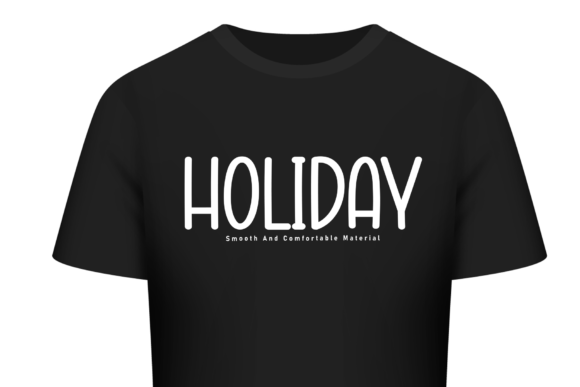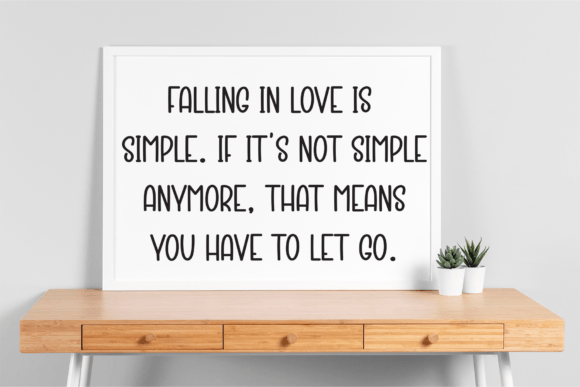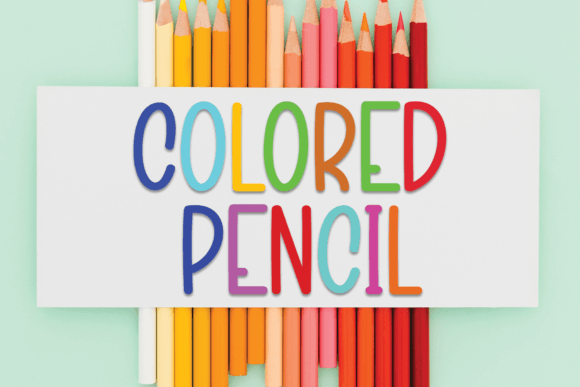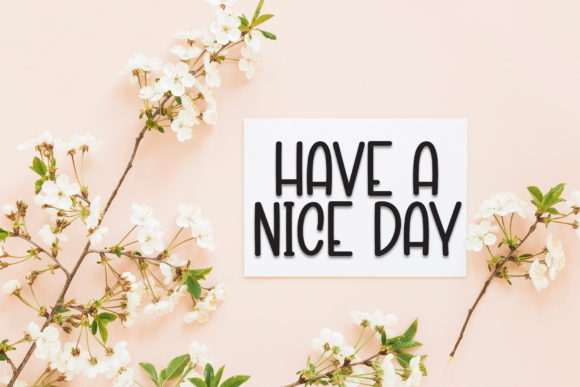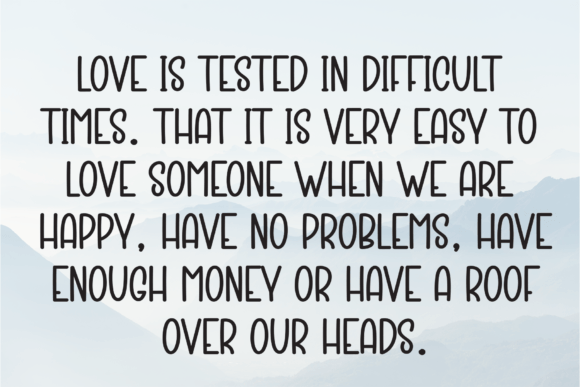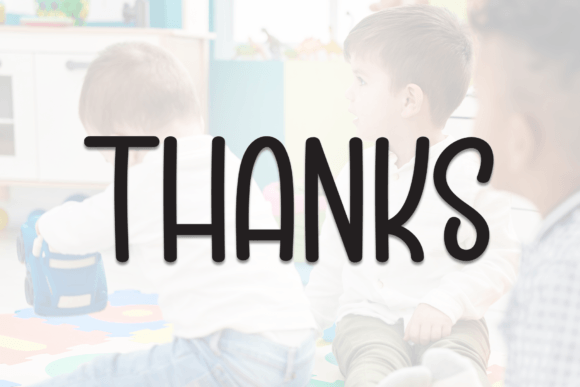
Unleashing Creativity with the Perfect Font
Have you ever sat down with a blank sheet of paper, a spark of inspiration, and a desire to create something truly special? That’s exactly where the magic happens, and the right font can make all the difference. For designers, finding the perfect font can be a daunting task, but what if we told you we’ve discovered a gem that’s sure to inspire your next project?
Meet the Baby School Font, a sweet and friendly handwritten font that’s as versatile as it is charming. With its natural and unique style, this font is the perfect companion for designers looking to add a touch of personality to their work. Whether you’re creating a children’s book, a wedding invitation, or a social media campaign, the Baby School Font is sure to bring your vision to life.
Baby School Font Key Features
- Font Family: Baby School Font is a hand-drawn, sans-serif font designed specifically for educational purposes.
- Unique Characteristics: Features a playful, child-friendly design with rounded edges and gentle curves, perfect for engaging young learners.
- Character Set: Includes a comprehensive set of characters, including uppercase and lowercase letters, numbers, punctuation marks, and special characters.
Baby School Font Review
First off, I want to say that the Baby School Font has a certain charm to it ✨. The whimsical feel and playful vibe are perfect for creating a nursery or kids’ educational materials. The font’s rounded edges and childlike quality make it instantly recognizable and attention-grabbing.
One of the things that stands out is the variety of font weights and styles available ✨. From bold to light, sans-serif to script, the options are endless. This makes it easy to mix and match to create a cohesive look for your project.
- ⚠️ Limited versatility outside of kids’ educational content: While the font is perfect for nurseries and educational materials, it may not be the best choice for more formal or professional projects.
- ⚠️ Not suitable for small text sizes: Due to its rounded edges and childlike quality, the font can become difficult to read at small text sizes.
Overall, I think the Baby School Font is a solid choice for anyone looking to create a fun and engaging design for kids. While it may have some limitations, its playful vibe and versatility make it a great addition to any designer’s toolkit.
Tips for Getting the Most Out of Baby School Font
Use Baby School Font for designs that require a playful, educational feel.
Combine Baby School Font with other fonts for a unique and eye-catching design.
Experiment with different font sizes and colors to create visual interest.
Baby School Font is perfect for:
Children’s educational materials.
Party invitations and decorations.
Playful branding and marketing materials.
Q: Can I customize Baby School Font to fit my specific design needs?
While Baby School Font is a highly customizable font, some modifications may require technical expertise. You can adjust font sizes, colors, and spacing using most design software. However, advanced customizations, such as modifying the font’s underlying structure or adding custom glyphs, may require advanced knowledge of font editing software like FontLab or Glyphs.